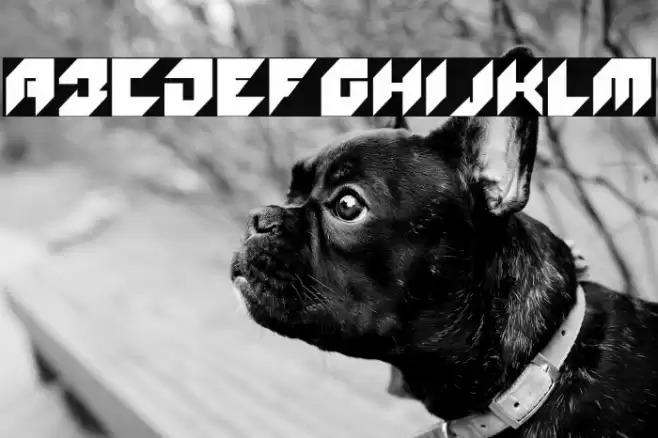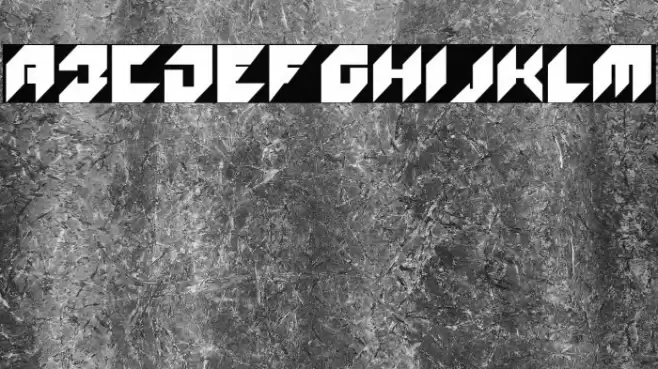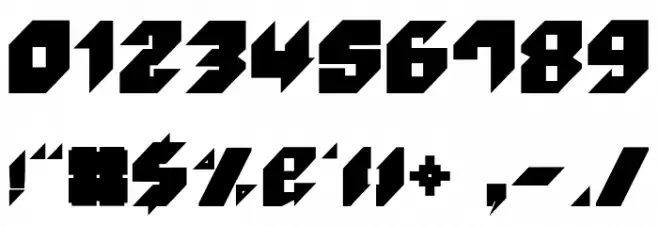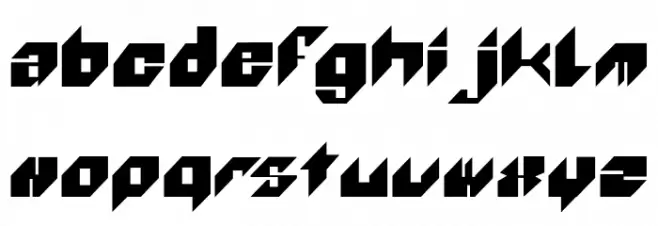
WOLF100-Regular Font
WOLF100-Regular Description
This font features a bold and geometric design, characterized by sharp angles and a blocky appearance. The letters are constructed with a futuristic and edgy style, giving them a distinct and modern look. The uppercase and lowercase letters maintain a consistent angular theme, while the numbers and special characters follow suit with a similar aesthetic. The overall design is striking and attention-grabbing, making it suitable for projects that require a strong visual impact.
A bold, geometric font with sharp angles and a modern, edgy style from Uncategorized fonts.
- Font: WOLF100-Regular
- Proposed Projects: Ideal for branding, posters, album covers, and any project requiring a futuristic or bold statement.
- Contrast: High
WOLF100-Regular UPPERCASE
WOLF100-Regular LOWERCASE
WOLF100-Regular OTHER CHARS